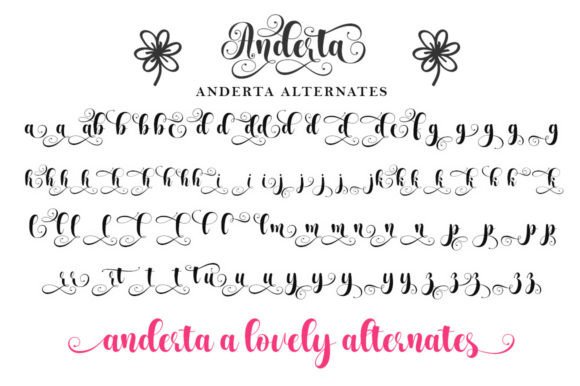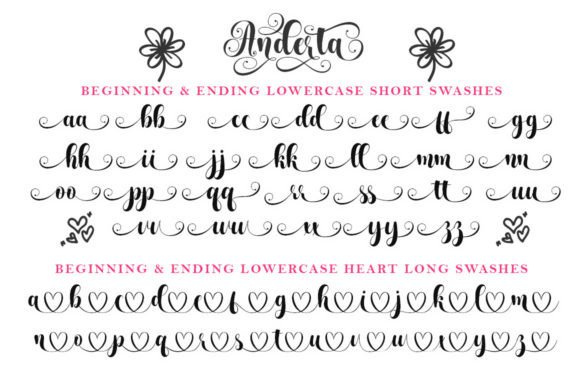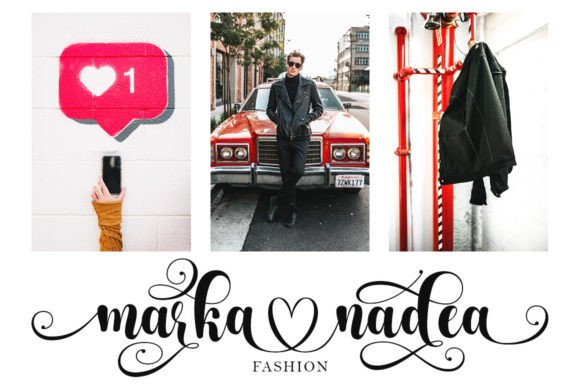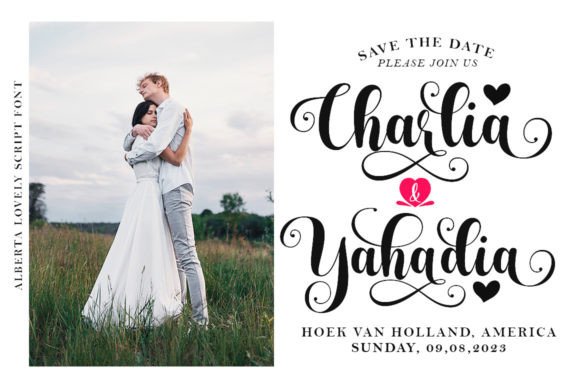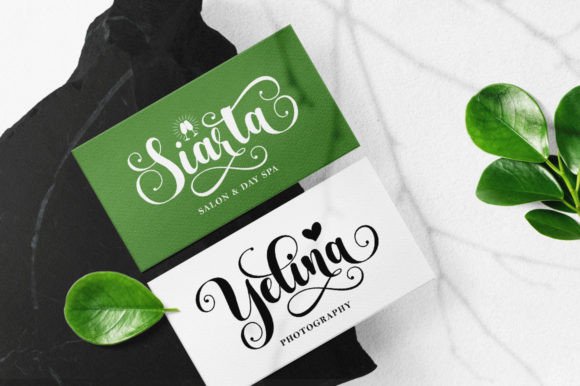
About Anderta Font
Anderta is a smooth, elegant, and flowing calligraphy font perfect for your favorite projects. Fall in love with its completely different and timeless style, and use it to create spectacular designs!